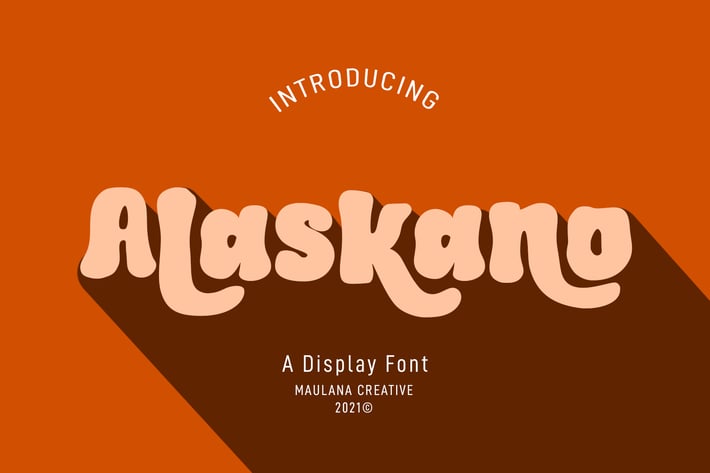
Alaskano Display Font
Alaskano is a handwritten Display font. With chunky bold stroke, bulb and fun character with a bit of ligatures and lowercase alternate. To give you an extra creative work. Alaskano font support multilingual more than 100+ language. This font is good for logo design, Social media, Movie Titles, Books Titles, a short text even a long text letter and good for your secondary text font with sans or serif. Make a stunning work with Alaskano font.